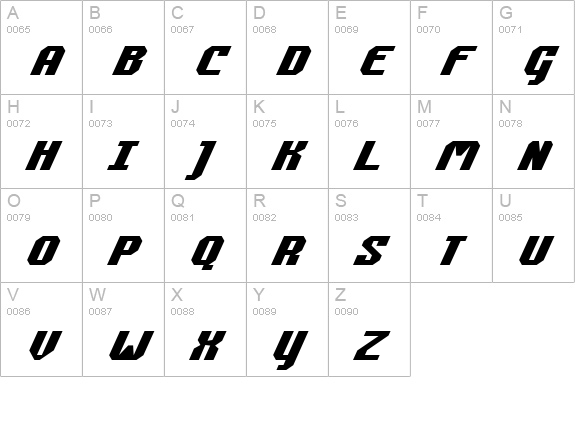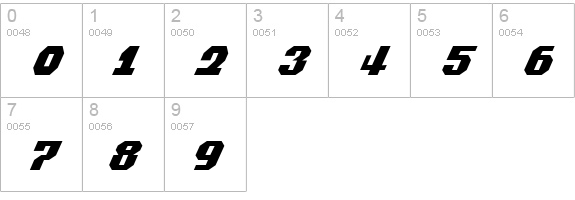
Commonwealth Italic is a distinctive, italic variant in the Commonwealth typeface family \xE2\x80\x94 well suited to design and typography projects.
Commonwealth Italic is a sophisticated and elegant font that exudes class and style. With its sleek and modern design, this font is perfect for adding a touch of sophistication to any project. The italicized style adds a unique flair, making text stand out in a subtle yet impactful way. What makes Commonwealth Italic even more appealing is that it is available for free download at FontsMarket.com. This means that you can easily access this stunning font without any cost, making it a perfect choice for designers, writers, and creatives looking to elevate their work without breaking the bank. Download Commonwealth Italic today and bring a touch of elegance to your projects with this beautiful and versatile font.